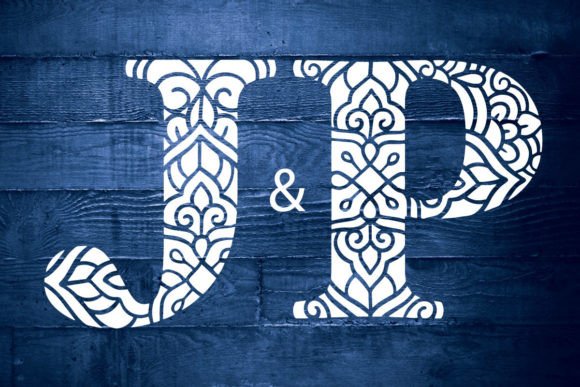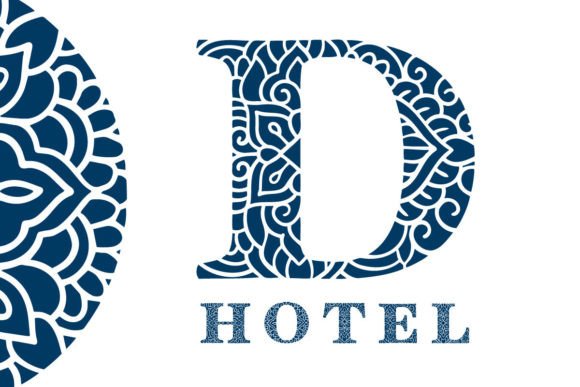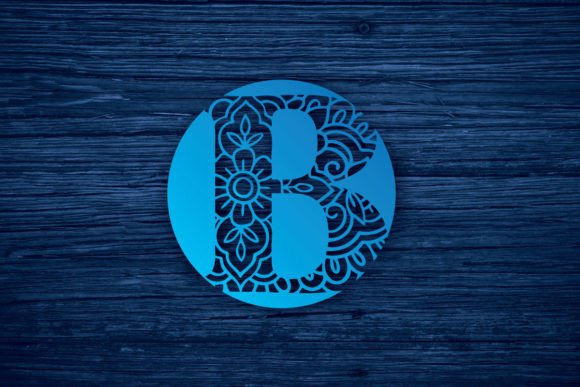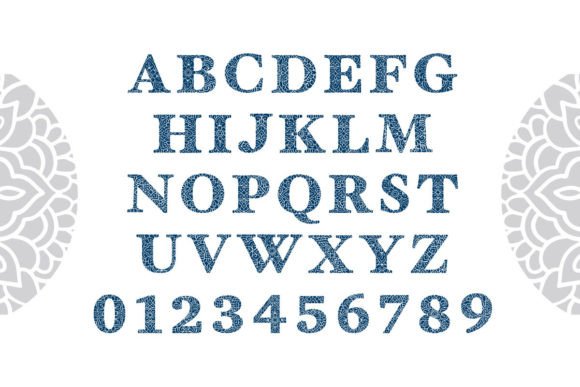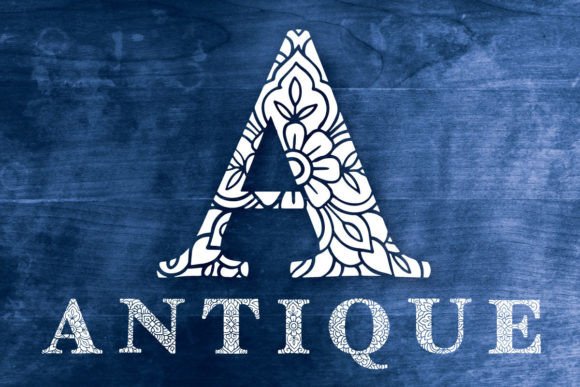
The Charm of Antique Font: A Designer’s Delight
I’ll never forget the time I was working on a vintage-themed branding project for a local craft brewery. I had spent hours scouring the internet for the perfect font, but nothing seemed quite right. That was until I stumbled upon the Antique font. With its smooth ornament line art and classic Thai art style, it was love at first sight! ✨
The Antique font is a beautiful example of vintage local Thai art, characterized by its intricate and ornate details. It’s perfect for adding a touch of elegance and sophistication to any design project, from alphabet names and titles to vintage logos and product packaging.
- ✨ Elegant and sophisticated design that’s perfect for vintage-themed projects
- ✅ Smooth ornament line art that adds a touch of luxury to any design
- 💫 Highly versatile and can be used for a wide range of design projects, from branding to social media
- ⚠️ Some of the ornament lines can be a bit finicky to work with, especially when it comes to kerning and spacing
- 🤔 Limited availability of certain glyphs and special characters, which can be a bit of a challenge for non-English language users
The Antique font is inspired by traditional Thai art and architecture, which is known for its intricate and ornate details. The font’s designer was inspired by the beautiful temples and palaces of Thailand, and sought to capture the essence of this classic style in a modern font.
A: The Antique font is a vintage local Thai art style font, characterized by its smooth ornament line art and classic design.